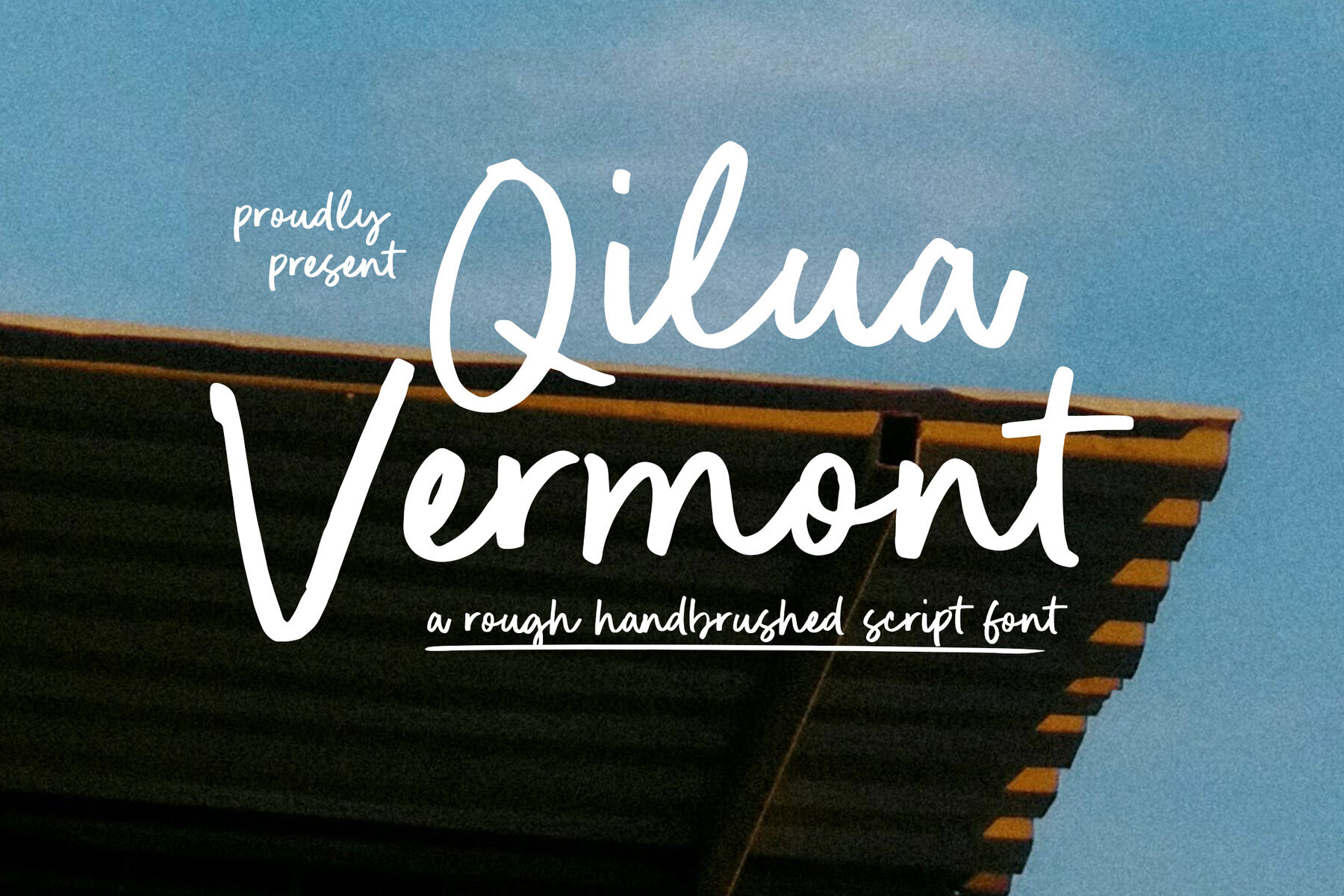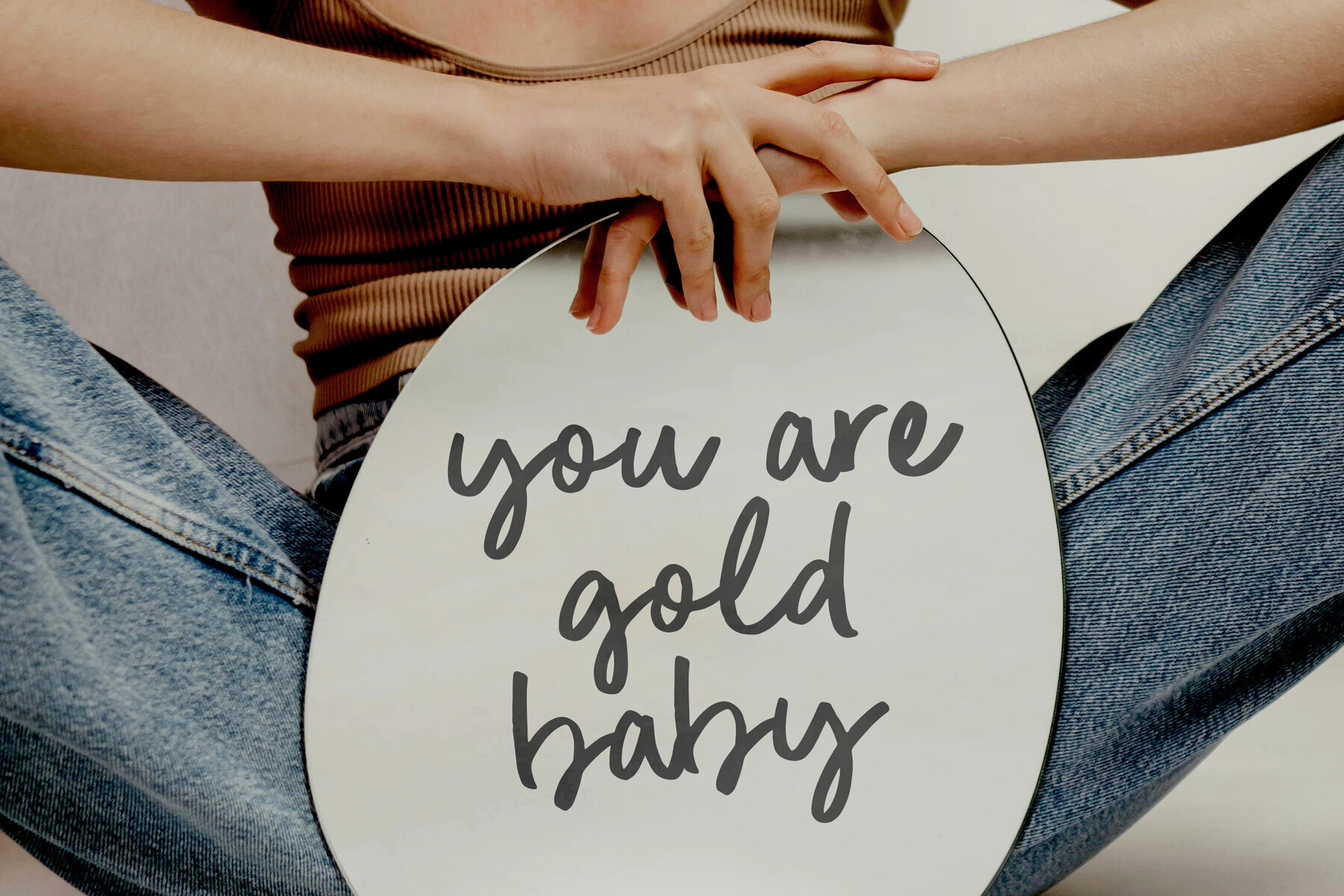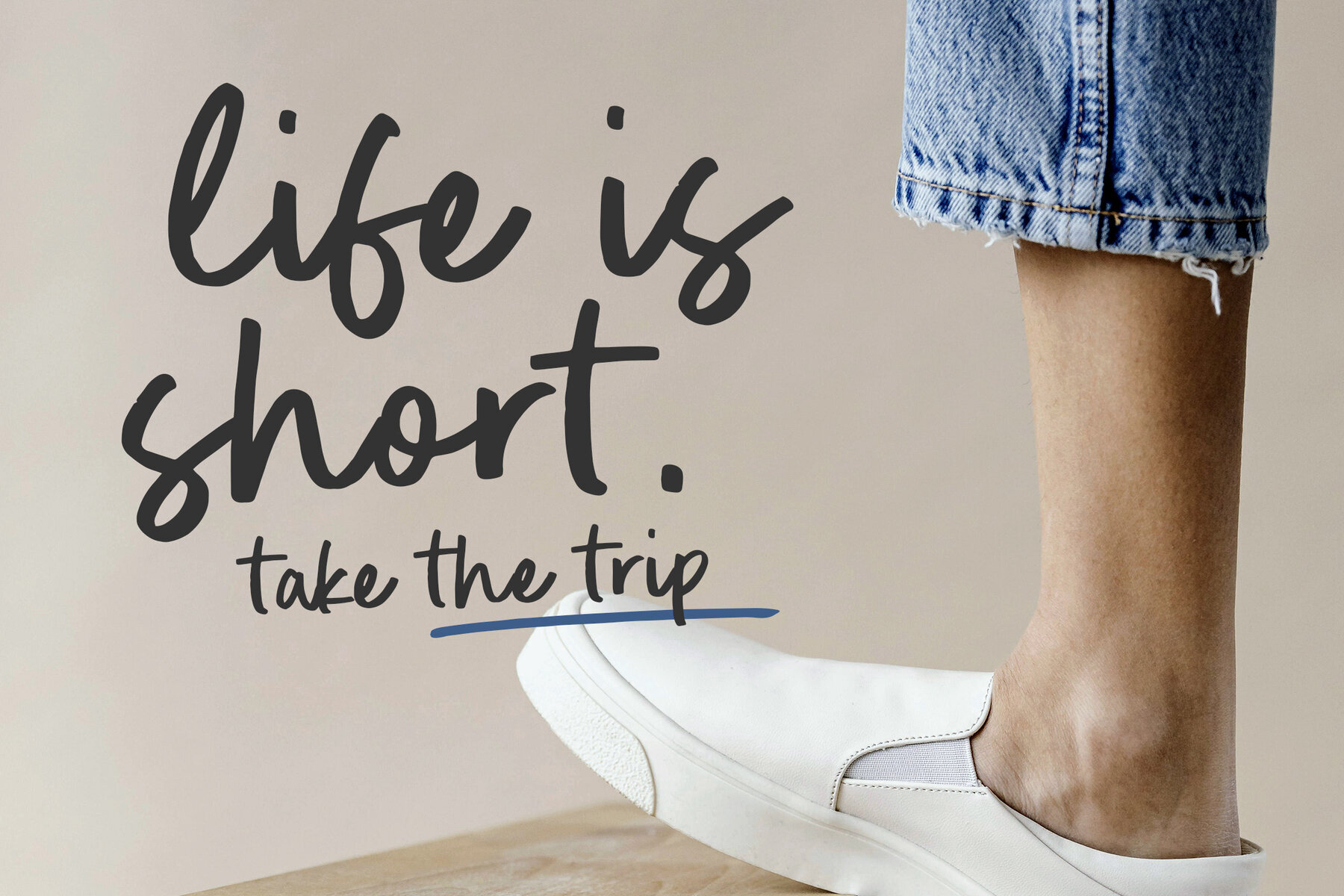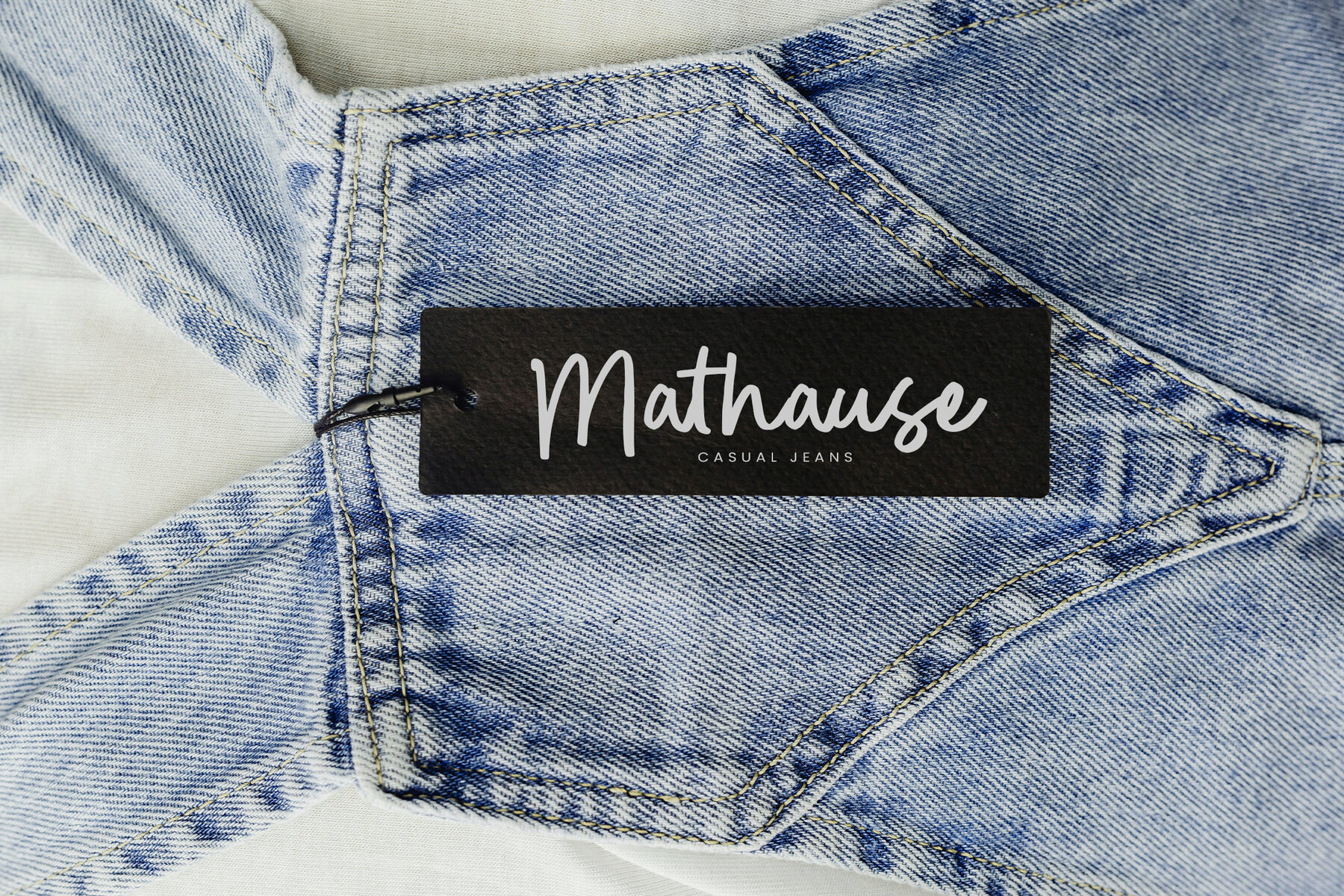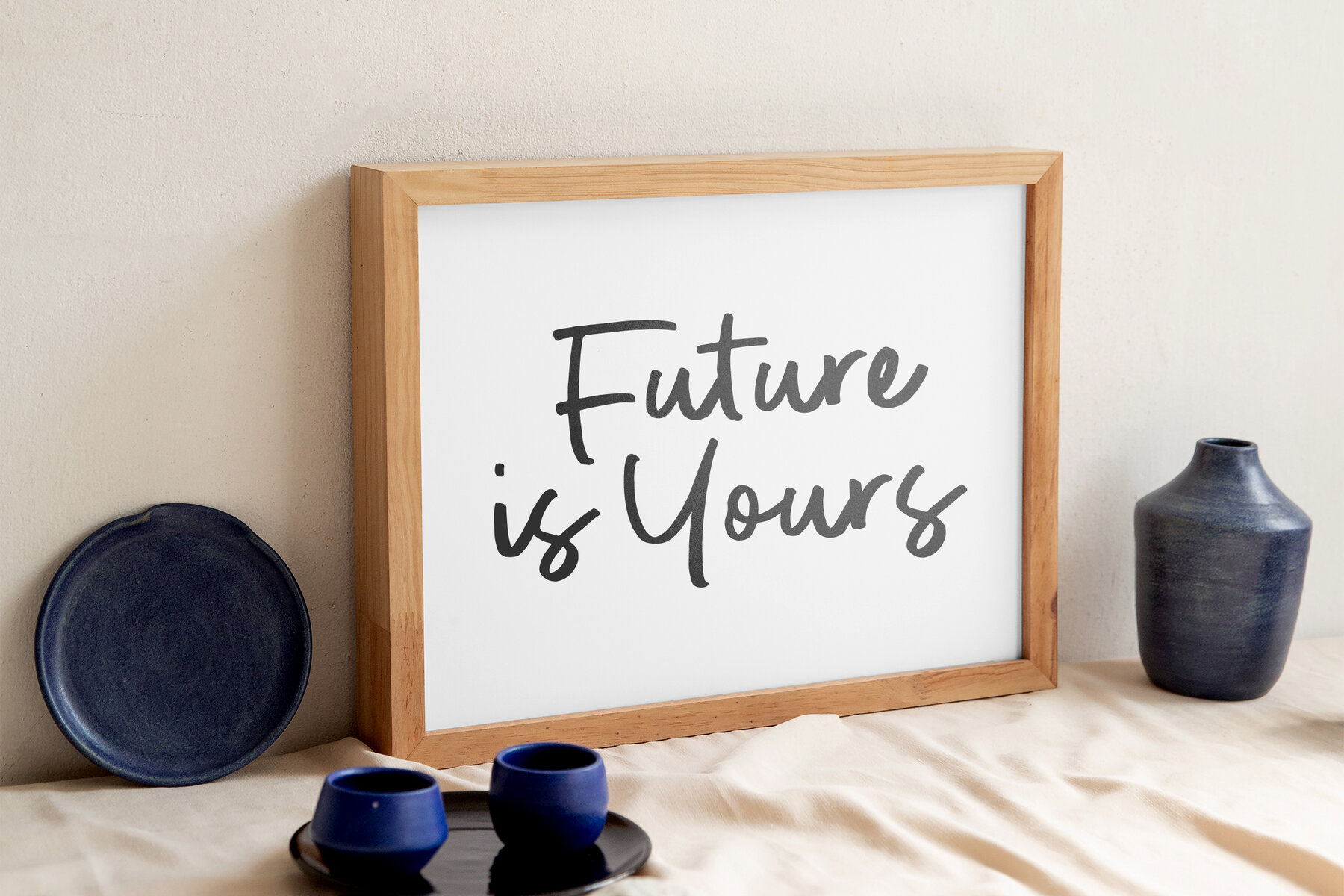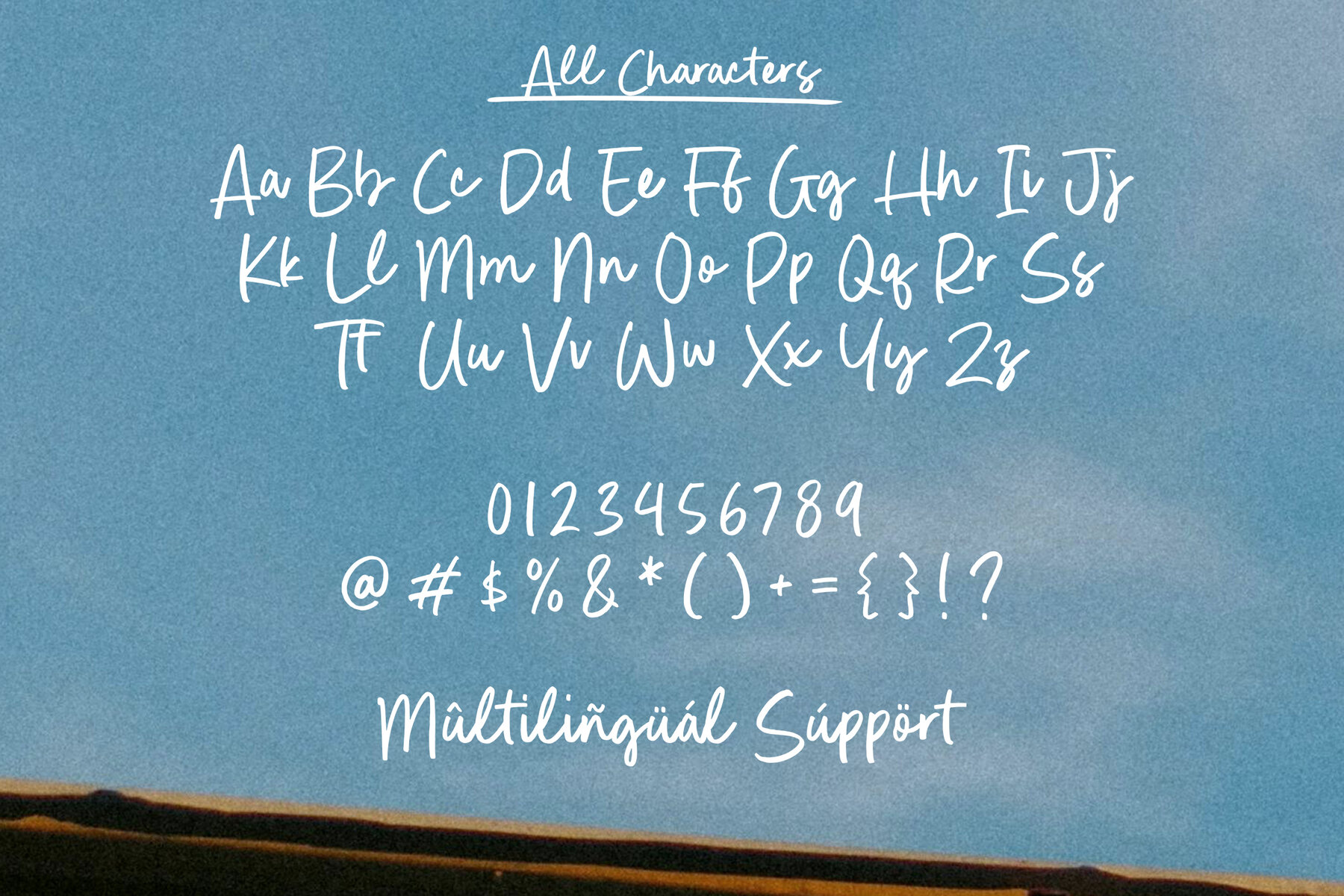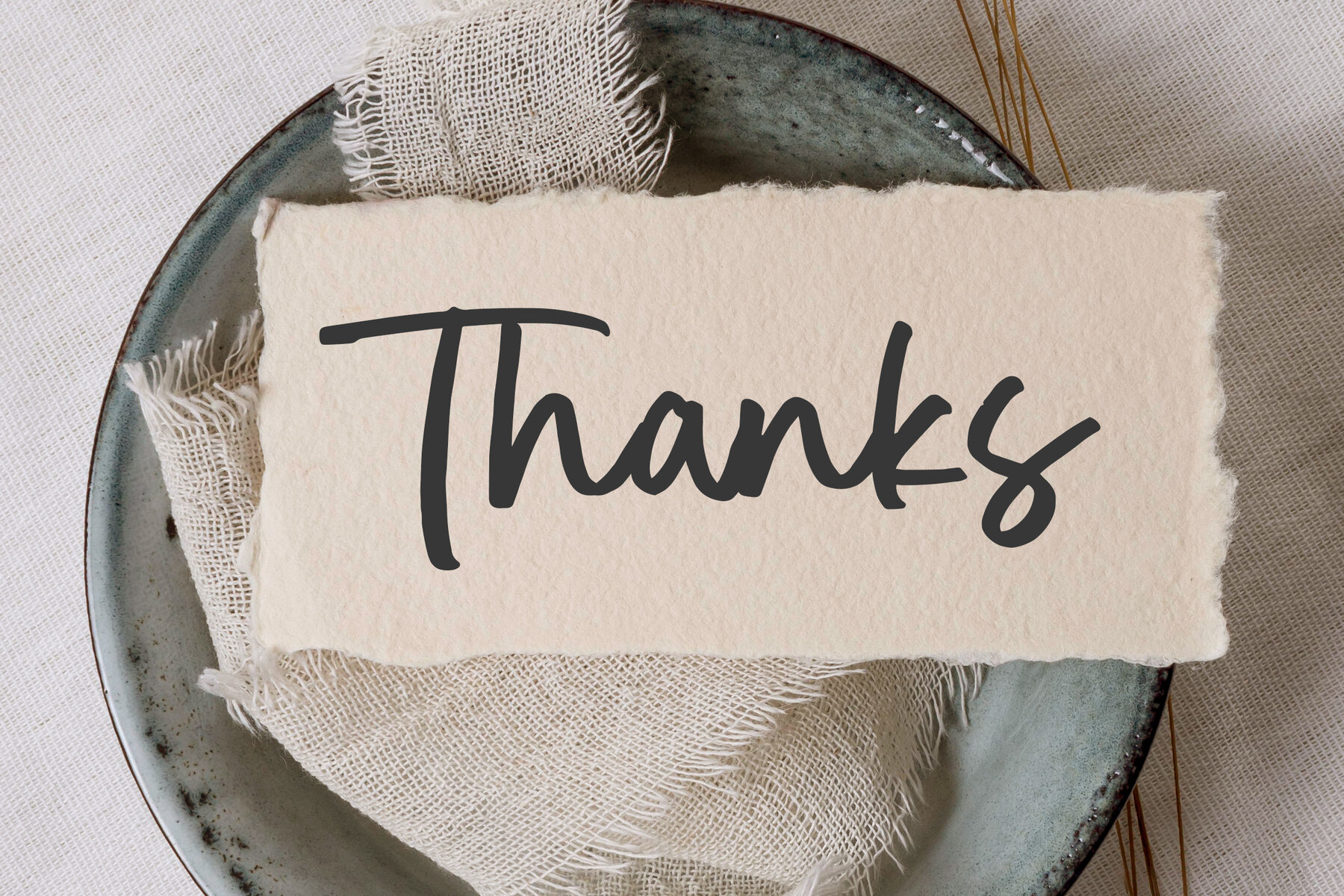
Qilua Vermont Font
Qilua Vermont
Qilua Vermont is a dynamic and expressive hand-brushed script typeface that resonates with raw energy and character. With its rough strokes and organic texture, this font adds a rebellious charm to any creative project. Perfect for logos, posters, branding, and social media graphics, Qilua Vermont delivers an authentic, handcrafted aesthetic that stands out with both confidence and creativity.Qilua Vermont Font: A Bold Handbrushed Script